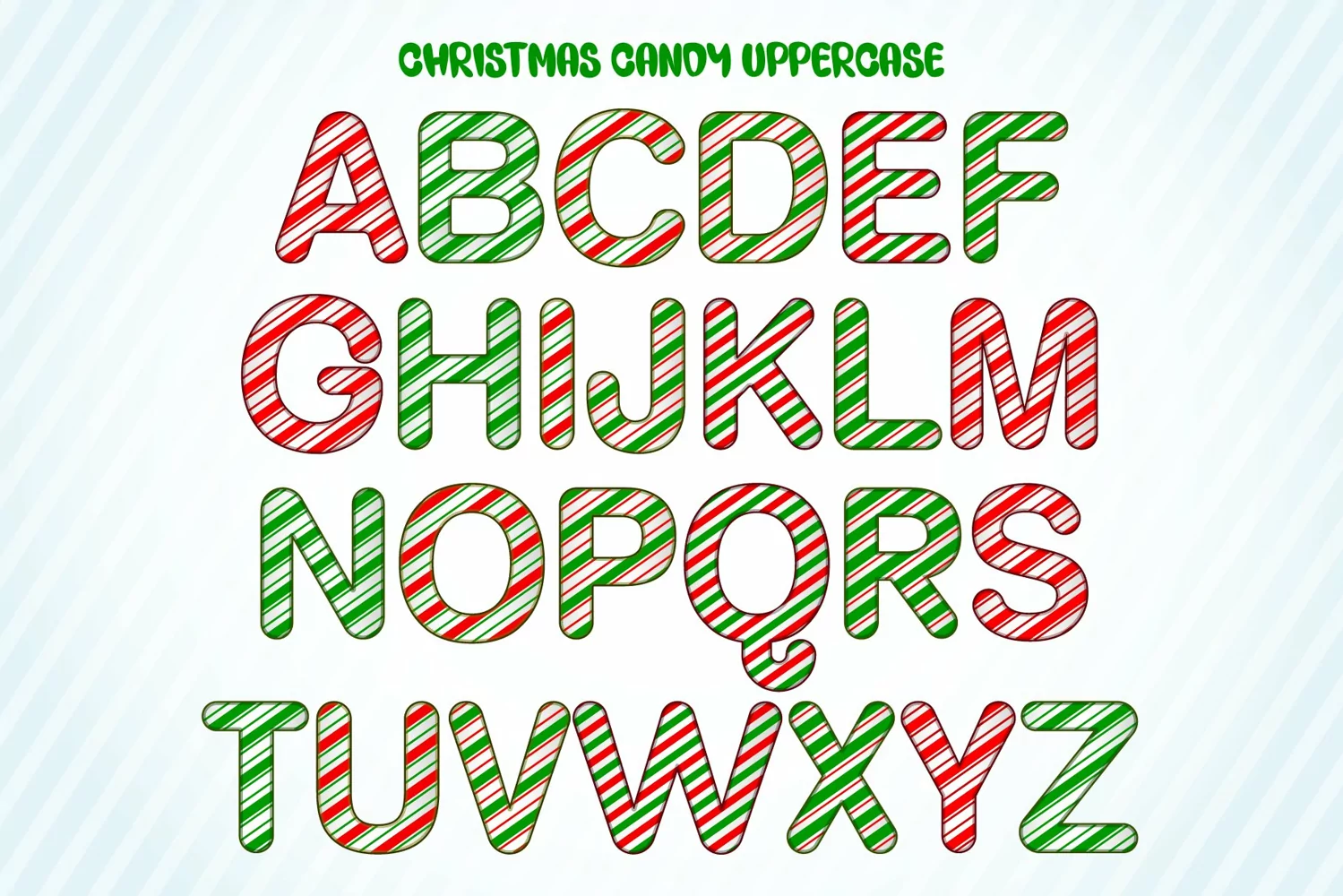
Christmas Candy
Experience the warmth and sweetness of the holiday season with the charmingly festive Christmas Candy Color font. This vibrant color font brings whimsical delight to any project it graces, transforming Christmas cane-themed designs, apparel, crafts, and cards into enchanting masterpieces. Let the Christmas Candy font spark your festive creativity and add a sprinkle of magic to your creations.